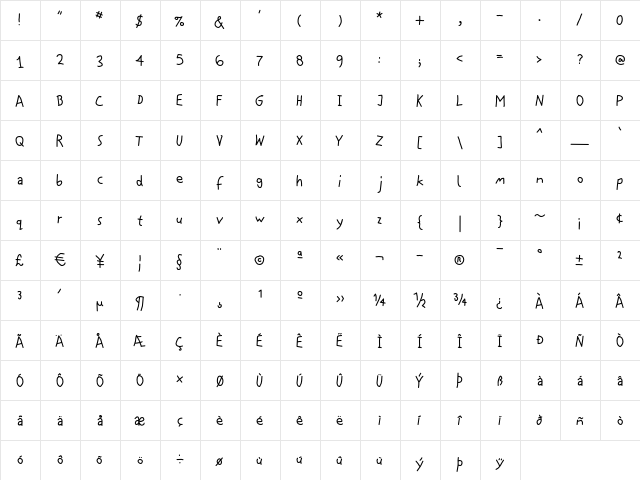
MouseCuts Medium
Design Context for MouseCuts Typeface
MouseCuts takes a measured approach to typography — its balanced proportions and neutral character make it a reliable workhorse for both digital and print work.